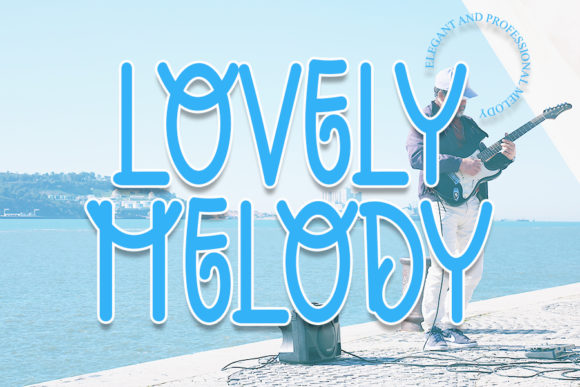
Welcome to the realm of written eloquence, where the Lovely Melody font reigns supreme. Its playful and whimsical nature will sweep you off your feet, leaving you spellbound by its enchanting charm. Step into a world where creativity dances on the wings of this enchanting font, transforming your designs into masterpieces that sing.
Picture this: a cartoon world come to life, filled with vibrant characters and whimsical tales. The Lovely Melody font is the maestro of this fantastical realm, guiding your designs along a path of pure imagination. Each letter, a tiny masterpiece, leaps off the page, carrying your words with a mischievous twinkle.
But Lovely Melody's allure extends far beyond the realm of animation. Its versatile nature makes it a font for all seasons, adapting seamlessly to a symphony of design projects. Whether you're crafting captivating quotes, designing eye-catching titles, or seeking the perfect font for your brand's identity, Lovely Melody harmonizes beautifully with your creative vision.
Unleash your inner child and let Lovely Melody ignite the spark of creativity within you. Its delightful curves and playful strokes will transport you to a world where imagination reigns supreme. Create children's games that burst with color and magic, where every click and move is an adventure in itself.
The Lovely Melody font is an artist's dream, a tool that breathes life into your creations. Its versatility knows no bounds, making it the perfect choice for book covers that whisper tales of wonder, posters that shout with vibrancy, and any project that craves a touch of whimsy.
With Lovely Melody at your fingertips, you'll discover a new level of design freedom, where imagination knows no limits and creativity flows like a cascading waterfall. Embrace the magic of this enchanting font and watch as your designs transform into works of art, captivating the hearts of all who lay eyes upon them.